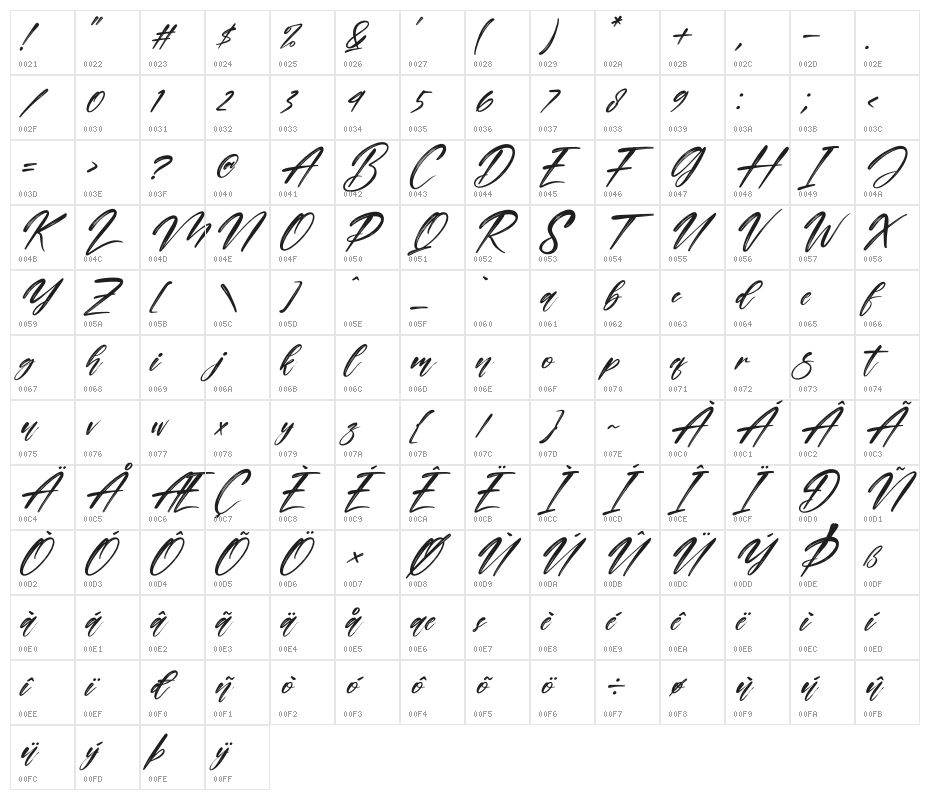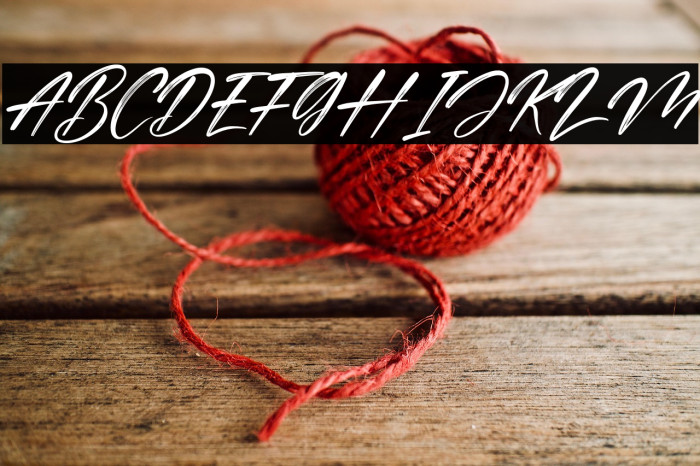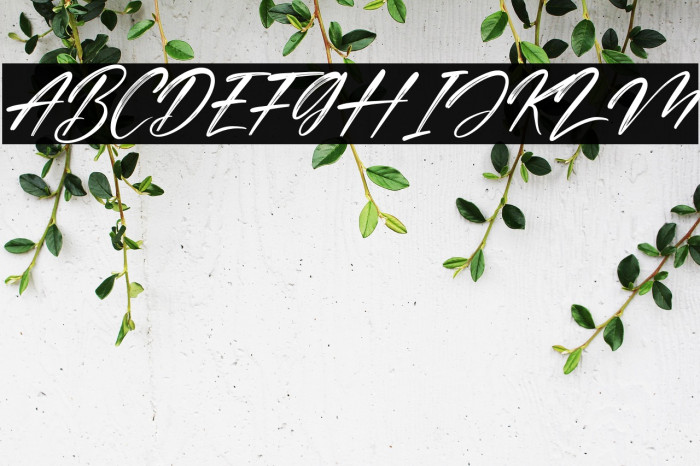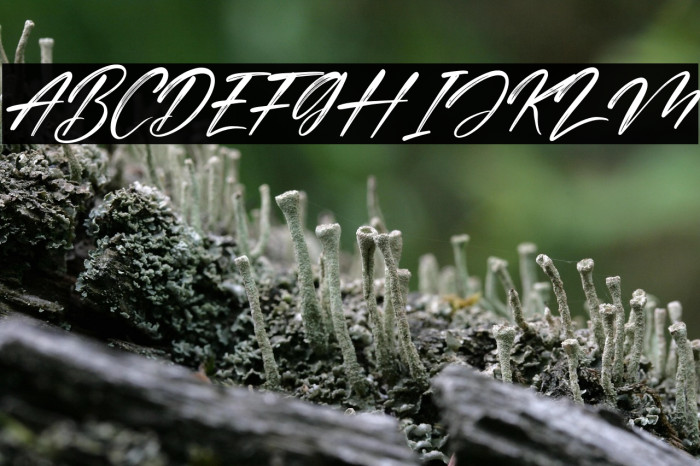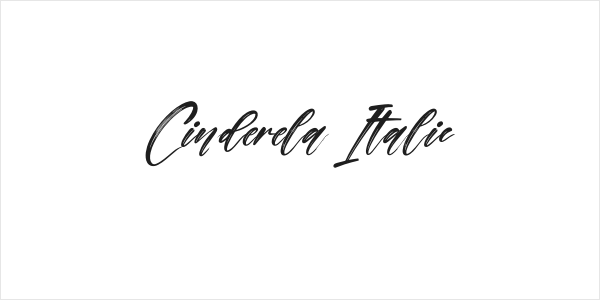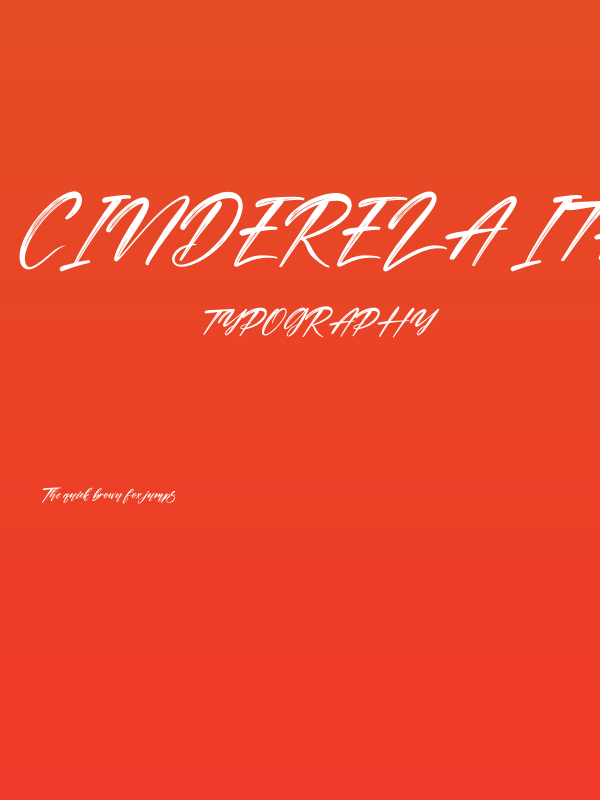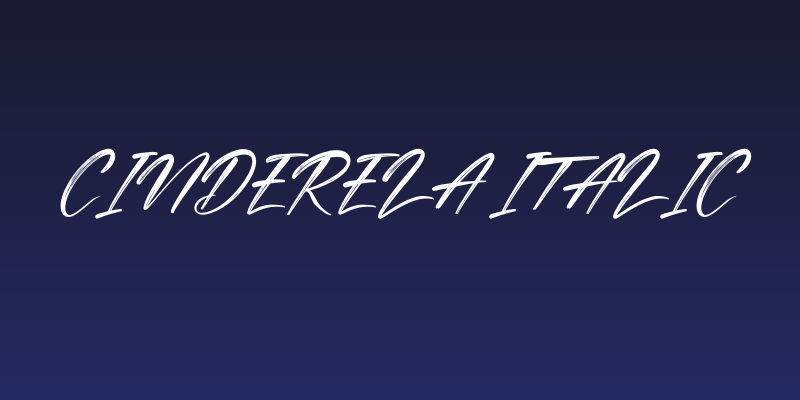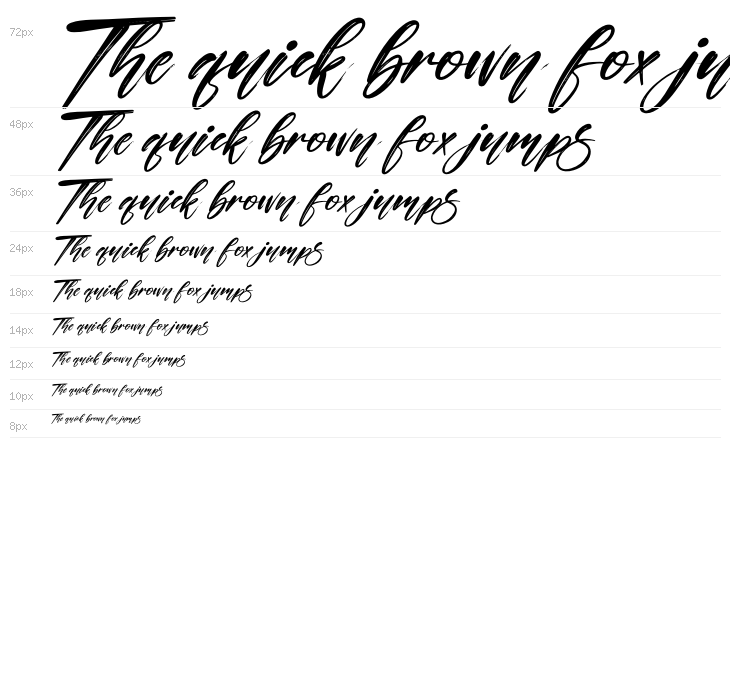
Cinderela Italic Font
Cinderela Italic Description
This font exudes a dynamic and elegant script style, characterized by its fluid, cursive strokes and a natural handwritten appearance. The letters are interconnected, creating a seamless flow that enhances its readability while maintaining an artistic flair. The uppercase letters are bold and prominent, with a slight slant that adds to the overall italicized effect. The lowercase letters are more compact, yet they maintain the same fluidity and grace. The numbers and special characters are consistent with the script style, ensuring a cohesive look across all elements. This font is perfect for adding a touch of sophistication and creativity to any project.
Overall StyleElegant, Artistic
Use CaseLogos, Invitations, Branding
Proposed ProjectsIdeal for wedding invitations, greeting cards, branding, and logo design where a touch of elegance and personal style is desired.